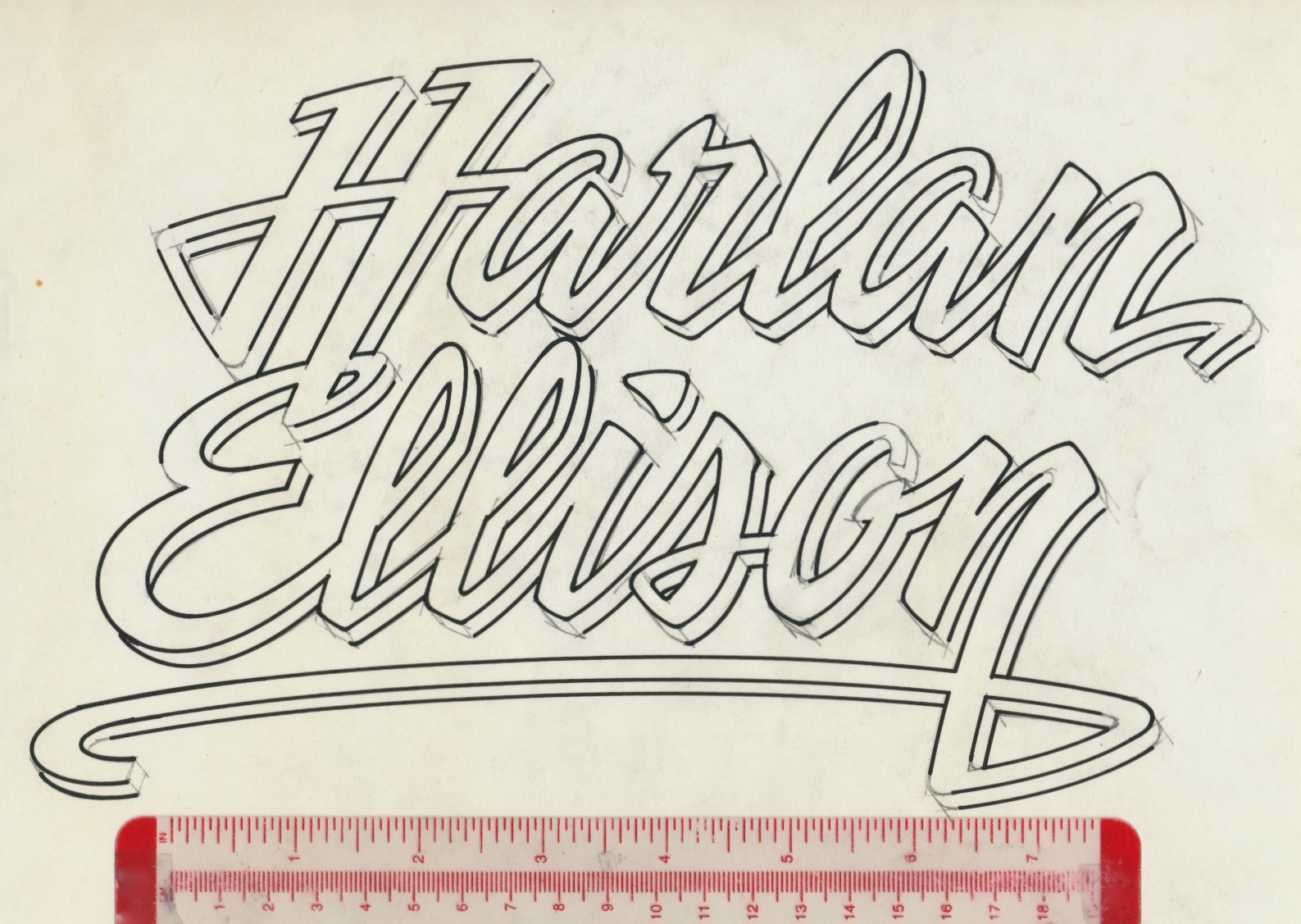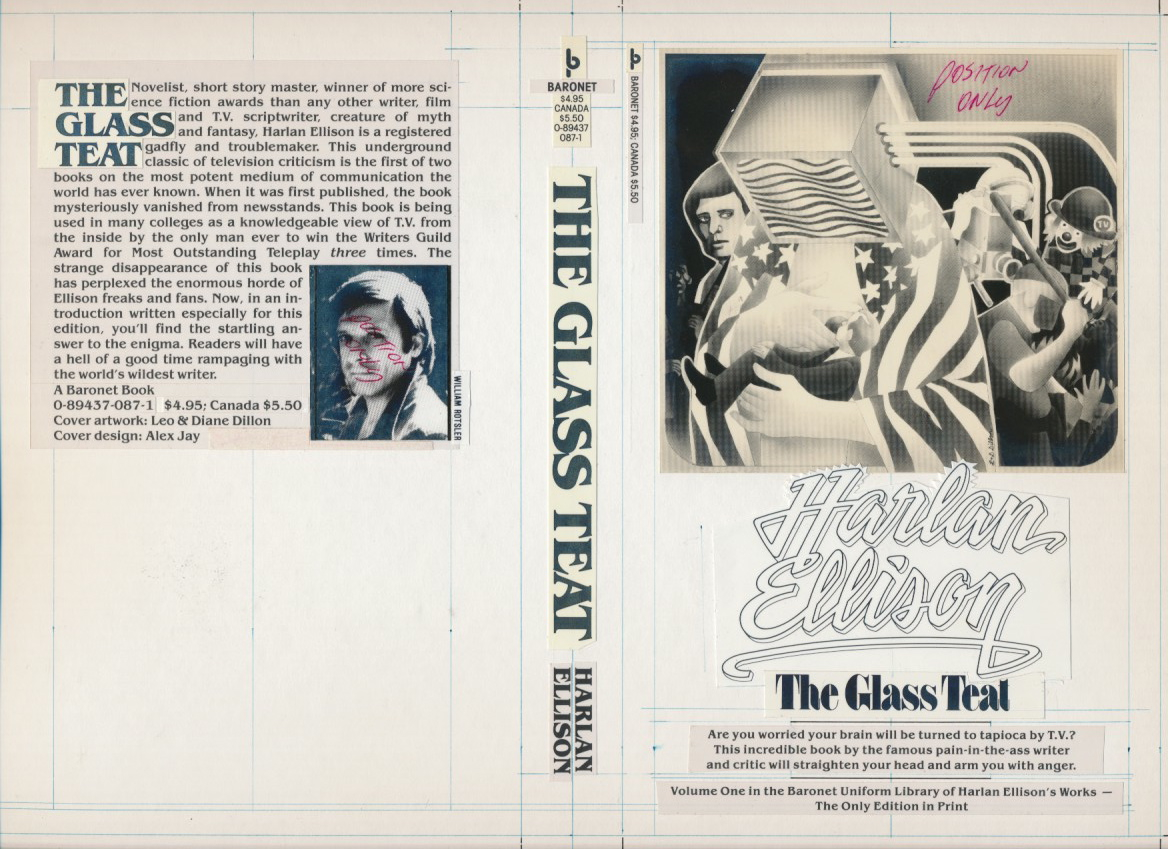
The Baronet Uniform Library of Harlan Ellison's Works was a mass-market paperback series to be published in Spring 1980 by Baronet Publishing under its Baronet Books imprint. Baronet was the original publisher of Will Eisner’s A Contract with God, and the Byron Preiss produced books, The Illustrated Roger Zelazny, The Illustrated Harlan Ellison and Alfred Bester’s The Stars My Destination. Cover dummies were made of the first two volumes, The Glass Teat and Paingod and Other Delusions. The fonts ITC Machine and Helvetica Black were used on the dummies.
I was the designer of the Ellison series. The publisher was Norman Goldfind, who was, at one time, the publisher at Pyramid Books, which published eleven Ellison books in a uniform series designed and illustrated by Leo and Diane Dillon. The Baronet edition would reuse the Dillons artwork. If you see the Paingod original art hanging on someone’s wall, please call the FBI because it was stolen from the Baronet office.
I hand-lettered “Harlan Ellison” in a stylized script. I don’t have the sketches but you can see the some of the penciling on the bristol board. At the inking stage, the outline of the letters and shadows were the same weight. I stopped, looked at the outline and thought the weight should be different. I considered painting over the shadow outline but the surface would be uneven and might affect the inking. So, I decided to start over. All of the inking was done with Rapidograph pens and an assortment of ellipse templates, a French curve and a flexible curve. White gouache was used for corrections.
The ITC Benguiat font family was used on the cover and spine. For the front cover title I used Fat Face. The pricing information was set in the Futura Condensed family.
Baronet went out of business before the books were published. Harlan Jay Ellison was born May 27, 1934.